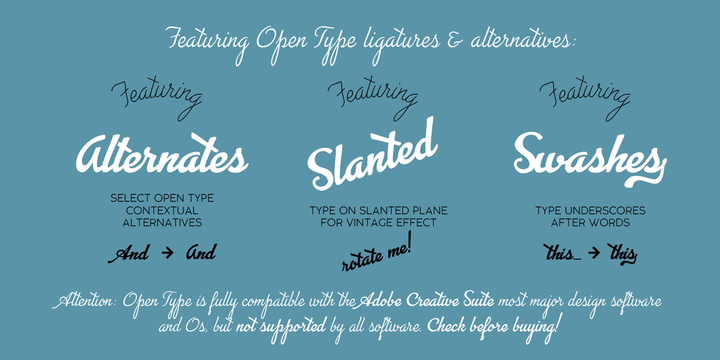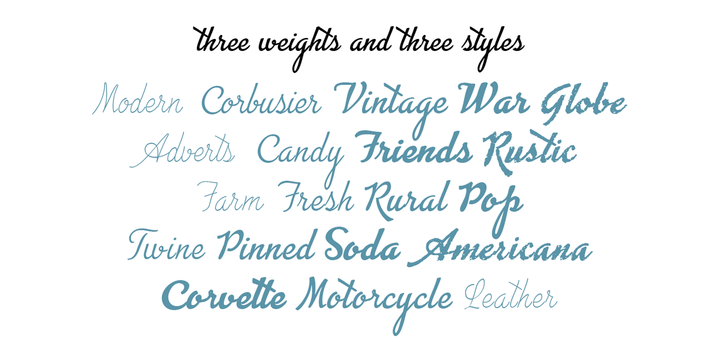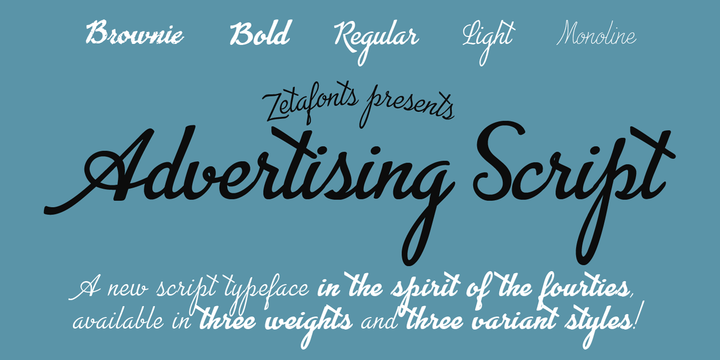
Advertising Script Font
Advertising Script is a brush script typeface inspired by a handmade sample drawn by the calligrapher Ross Frederic George and depicted in Speedball 1947 Textbook Manual. Advertising Script has a vintage brush script look, perfect for food packaging, display and logo design and period advertising.